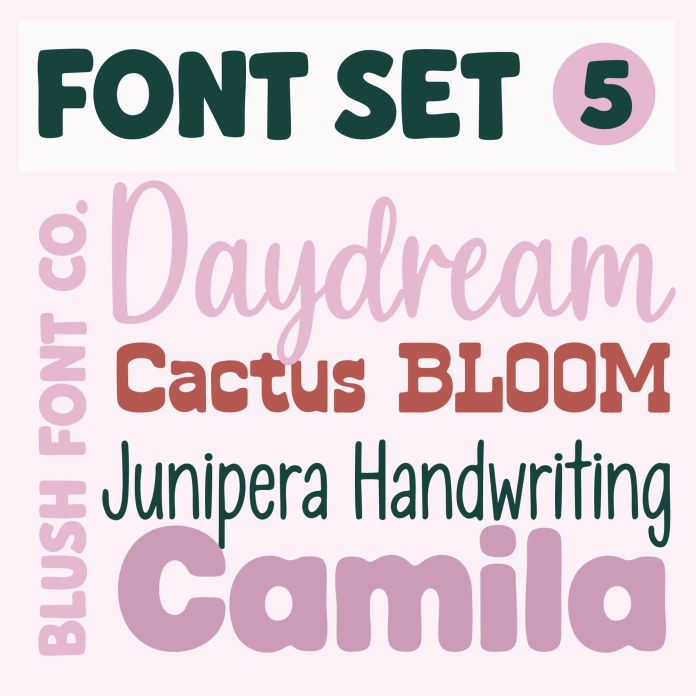
Font Set 5 features a collection of adorable Cute Handwriting, Bold, and Western Fonts. The key features include playful and whimsical designs, bold and eye-catching styles, and a Western-inspired aesthetic. This versatile set is perfect for adding a fun and unique touch to various projects such as invitations, posters, and branding materials.